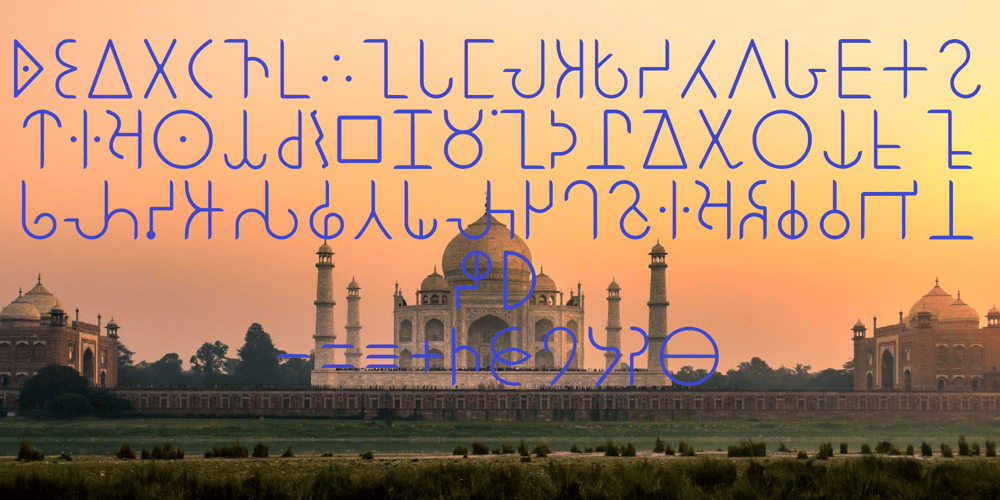
Ongunkan Brahmi Font Family was designed by Osman Nuri ALKAN and published by Runic World Tamgacı. Ongunkan Brahmi contains 1 styles and family package options. The Brāhmī alphabet is the ancestor of most of the 40 or so modern Indian alphabets, and of a number of other alphabets, such as Khmer and Tibetan. It is thought to have been modelled on the Aramaic or Phoenician alphabets, and appeared in India sometime before 500 BC. Another theory is that Brāhmī developed from the Indus or Harappa script, which was used in the Indus valley until about 2,000 BC.The earliest known inscriptions in the Brāhmī alphabet are those of King Asoka (c.270-232 BC), third monarch of the Mauryan dynasty.Brāhmī was used to write a variety of languages, including Sanskrit and Prakrit.